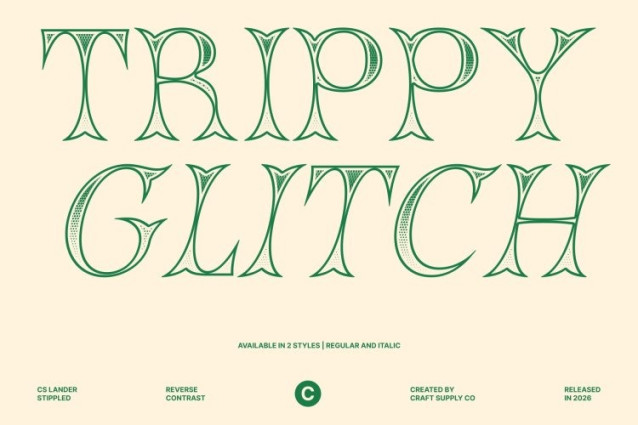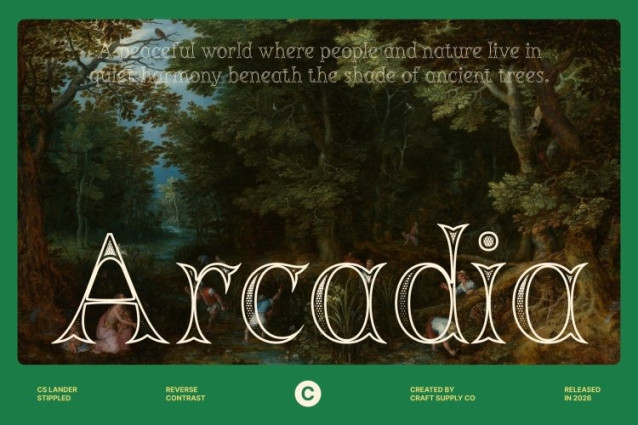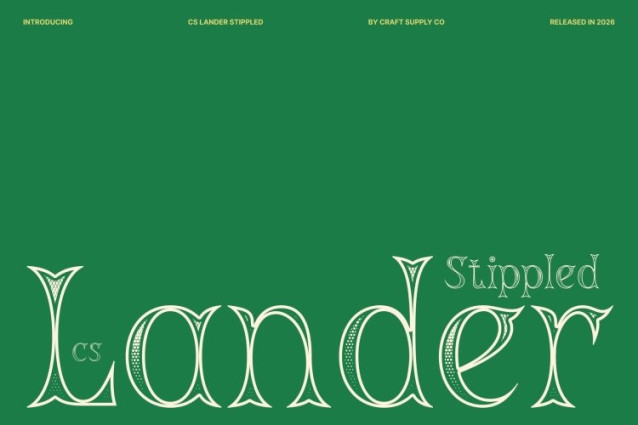
CS Lander Stippled Font – This is a striking reverse contrast display font that pairs bold letterforms with a distinctive twist. Thick strokes meet thin serifs to create a dynamic visual rhythm, while the stippled texture adds a dense dotted character that enhances depth and personality. The result is a highly engaging typeface that instantly commands attention.
Bold, Playful, and Funky Personality
With its strong shapes and playful construction, this font captures retro energy with a contemporary edge. The reverse contrast design delivers a funky, rebellious attitude that feels expressive and youthful perfect for projects that aim to stand out and break convention.
Y2K Aesthetic with a Modern Edge
Inspired by the vibrant and futuristic spirit of the Y2K era, this font brings nostalgic excitement into modern design. From music posters and digital artwork to fashion branding and creative campaigns, this font blends retro charm with fresh visual impact.
Perfect for Eye-Catching Creative Projects
Ideal for posters, album covers, packaging, social media graphics, and bold branding, this font transforms typography into a statement piece. Its unique reverse contrast and dotted texture create a memorable, high-impact style that thrives in expressive and trend-driven design.